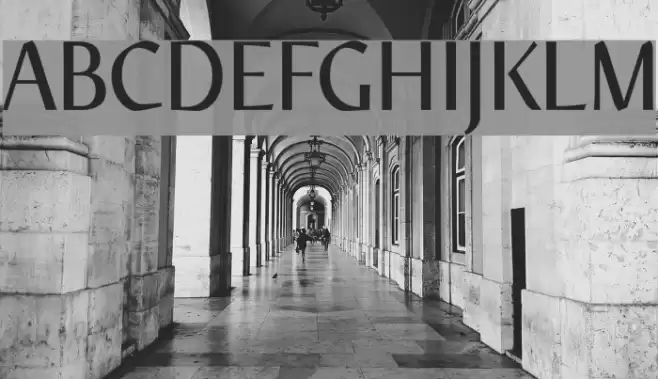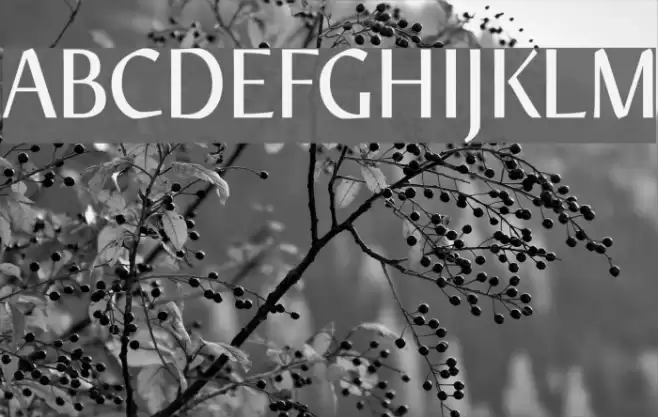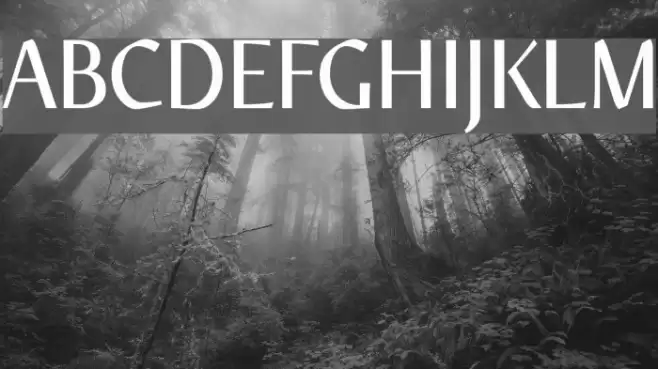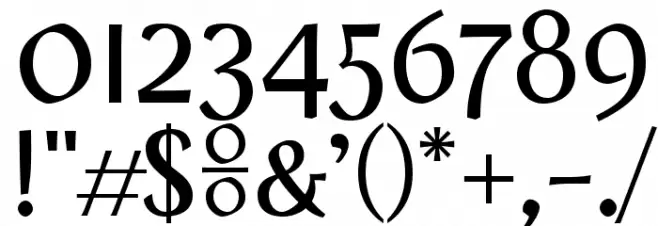
OnO Font
OnO Description
This font exhibits a modern and elegant style with a clean and sophisticated appearance. The uppercase letters are tall and slightly condensed, giving a sense of authority and professionalism. The lowercase letters maintain a consistent height, providing a balanced and harmonious look. The numerals are clear and easy to read, with a uniform width that complements the overall design. Special characters are distinct and well-integrated, ensuring versatility in various contexts. The font's smooth curves and sharp edges create a dynamic contrast, enhancing its visual appeal. It is suitable for both digital and print media, offering flexibility in design applications.
A modern, elegant font with clean lines and a sophisticated appearance from Uncategorized fonts.
- Proposed Projects: Ideal for branding, editorial design, advertising, and web design projects.